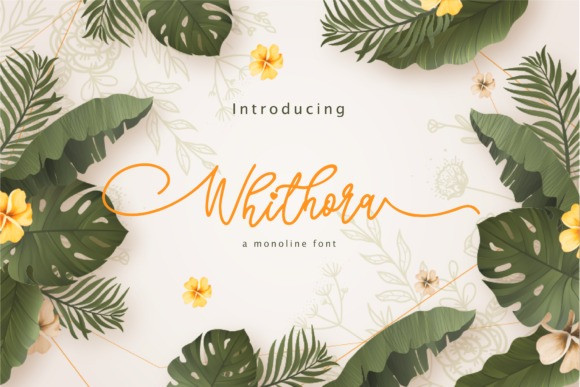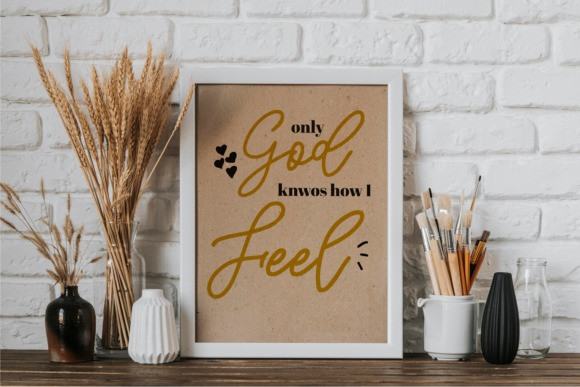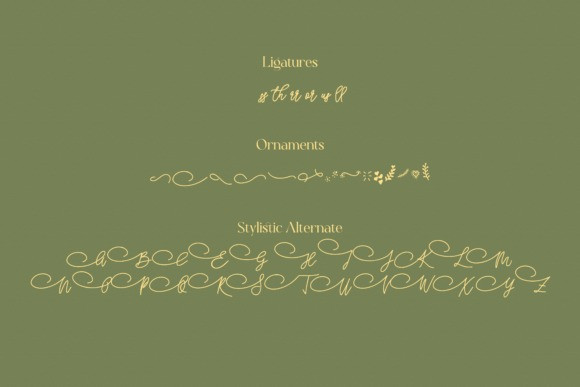
Whithora Font
Whithora is a lovely and delicate script font that exudes elegance and class. This font was particularly crafted for those who need a beautiful and refreshing look to their designs.
Whithora is PUA encoded which means you can access all of the glyphs and swashes with ease!